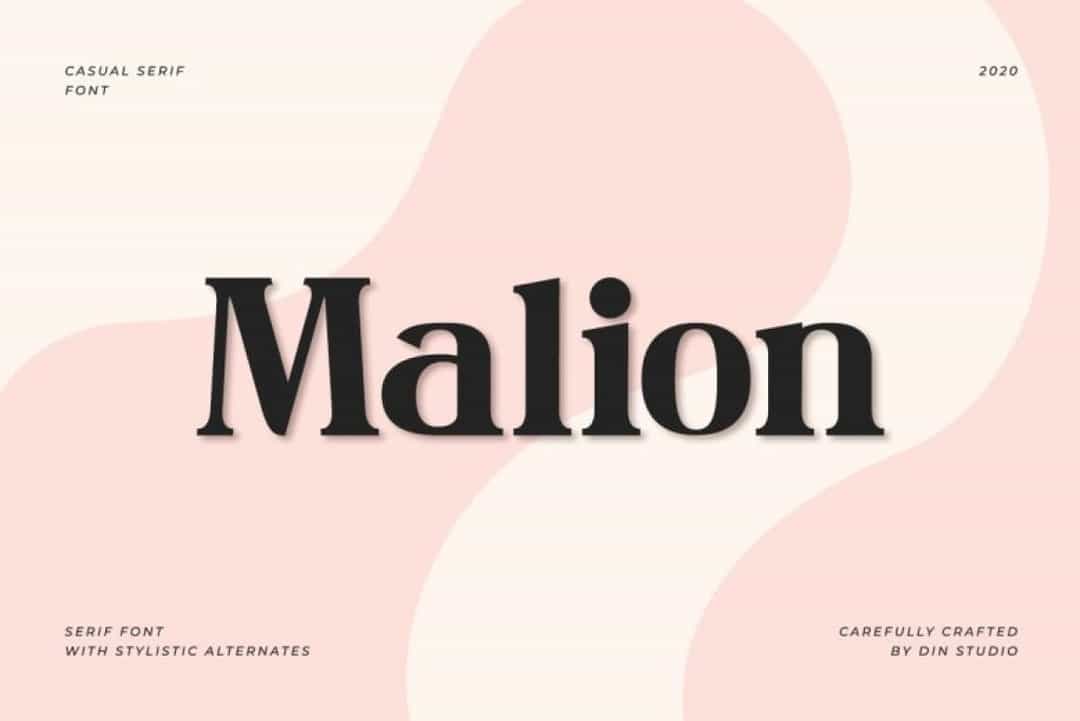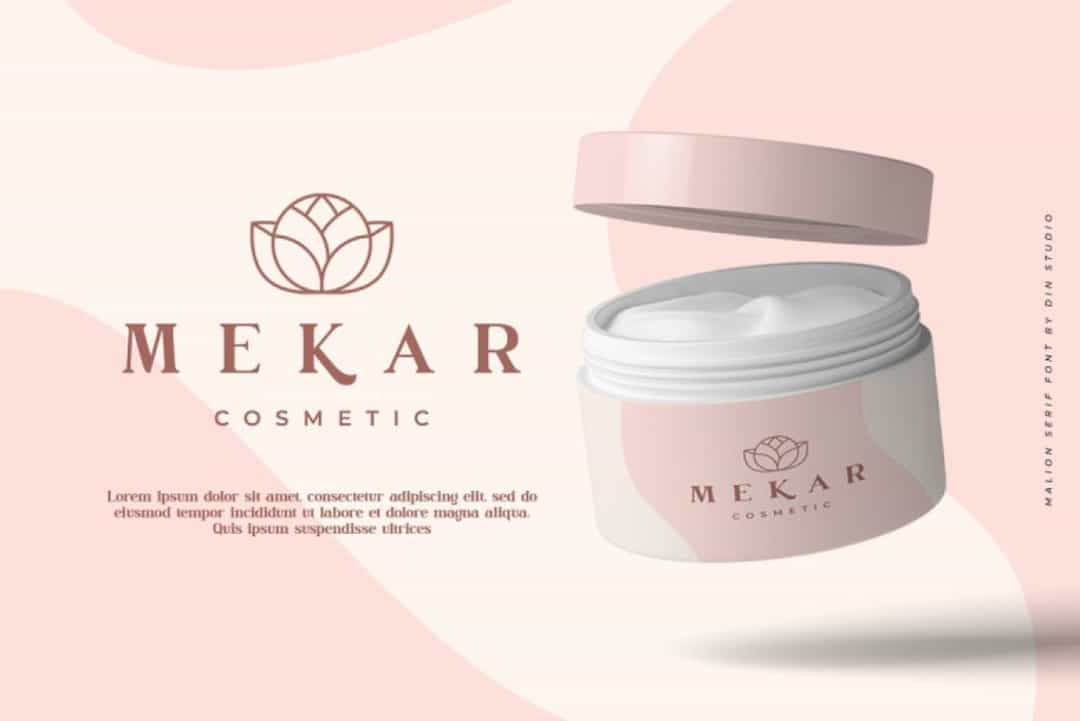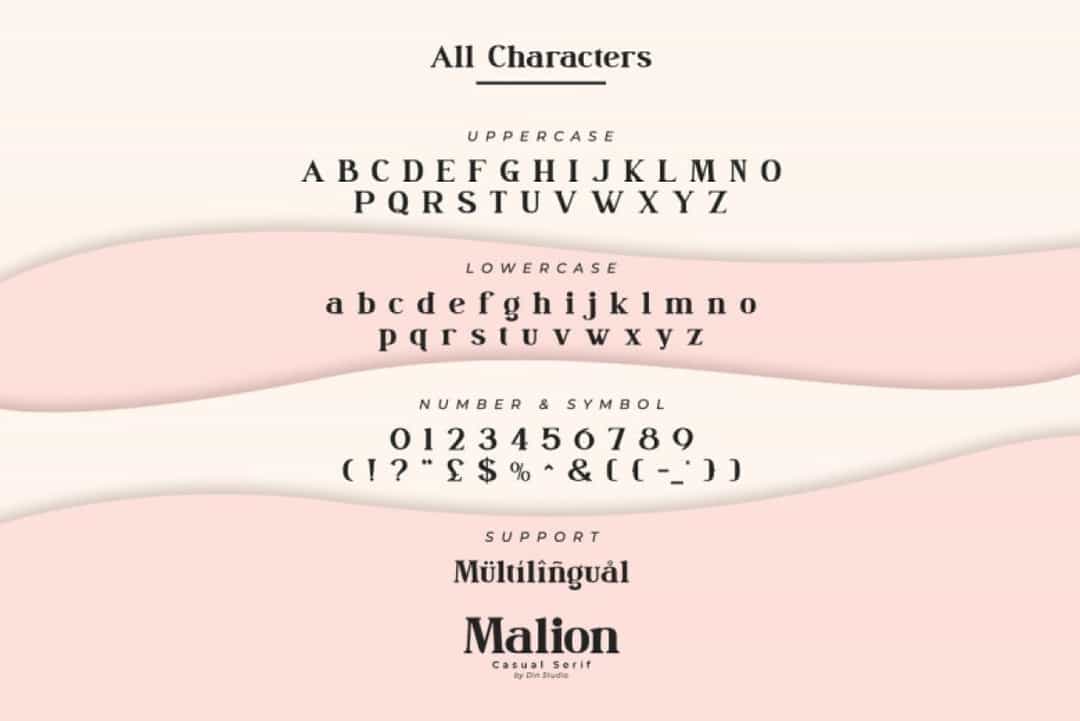
Malion is an eye-catching Display Serif typeface designed by our skilled designer. Create your own font using Malion for an engaging design that adds character and vibrancy to any project, be it branding, print templates logos or print templates and beyond.